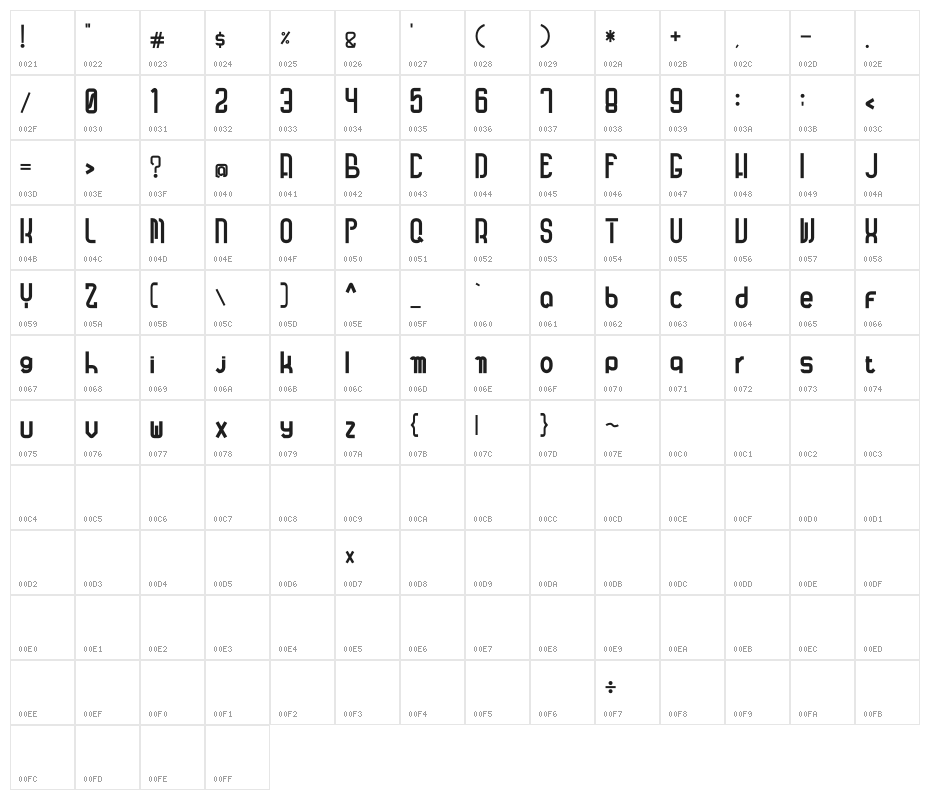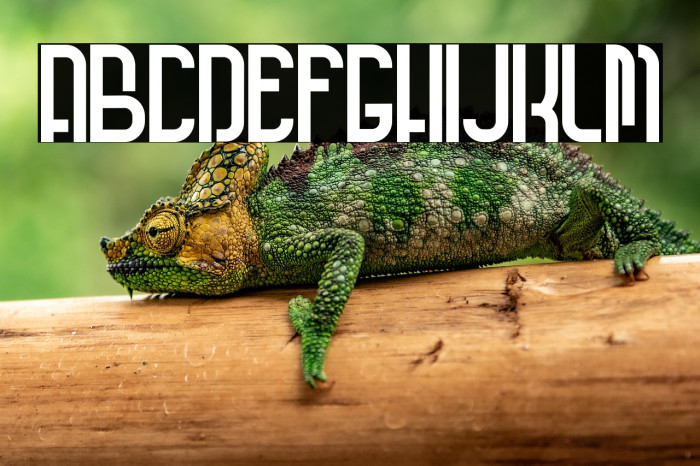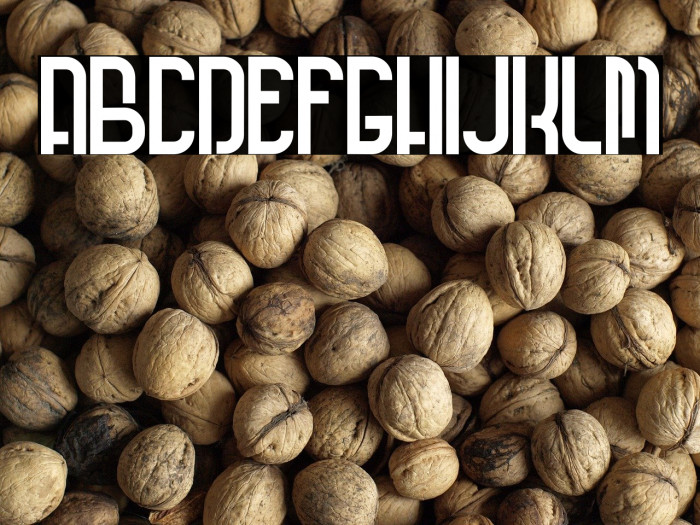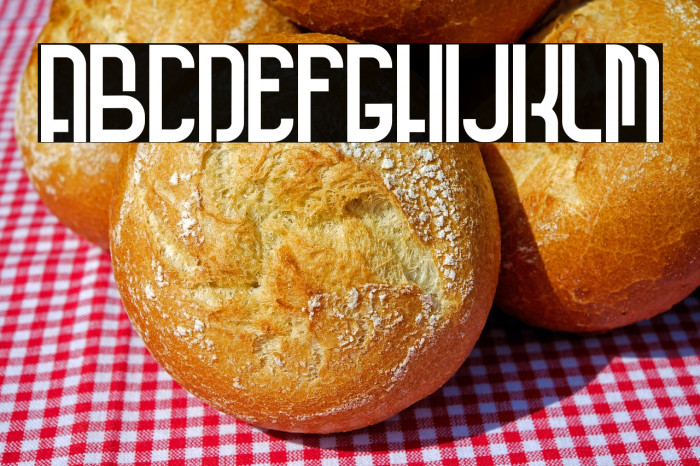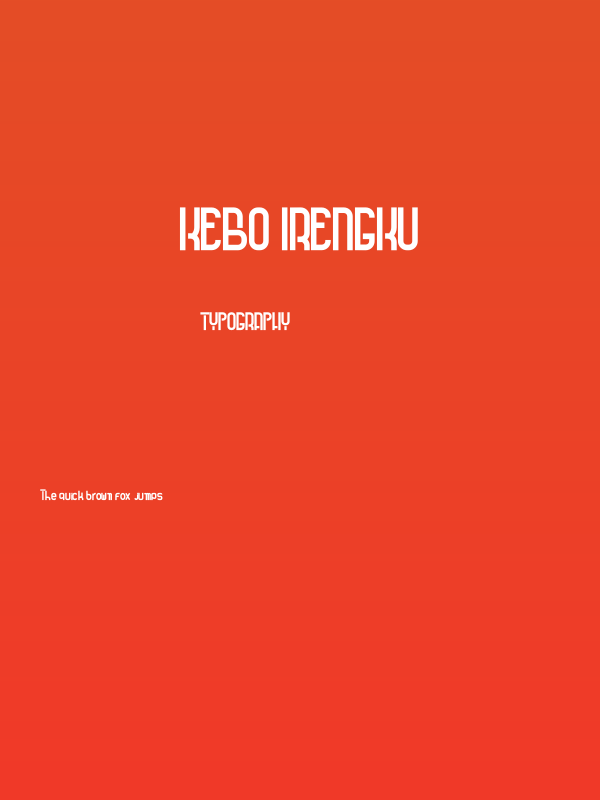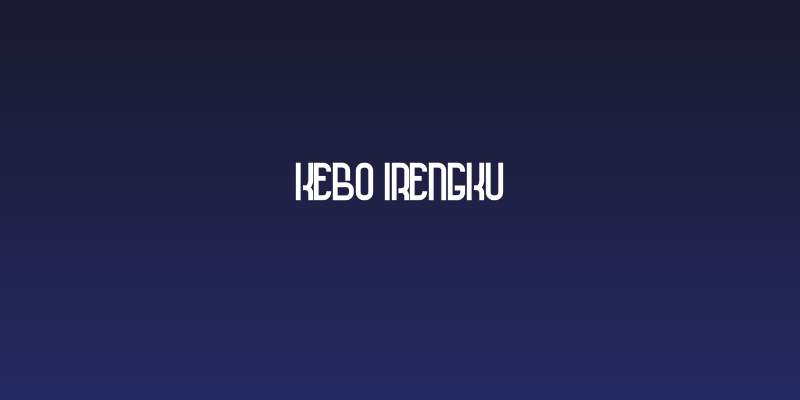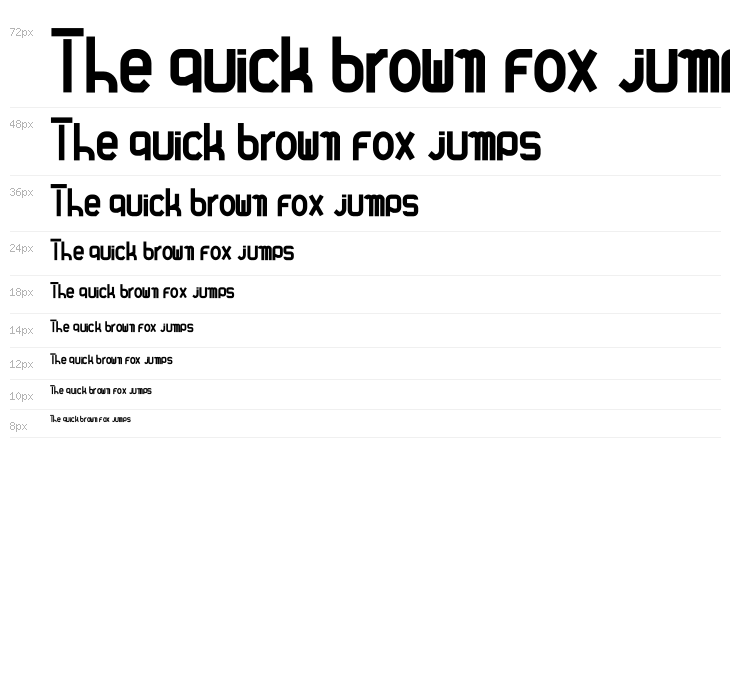
Kebo Irengku Font
Kebo Irengku Description
This font features a bold and geometric design with a modern twist. The uppercase letters are characterized by their angular shapes and consistent stroke width, creating a strong and impactful appearance. The lowercase letters maintain the geometric style, with some unique curves and angles that add a distinctive flair. The numerals are clear and easy to read, following the same bold and structured design. Special characters are well-integrated, maintaining the overall aesthetic. This font is ideal for projects that require a contemporary and assertive look, such as branding, posters, and headlines.
| Proposed Projects | Ideal for branding, posters, headlines, and any project needing a strong visual impact. |